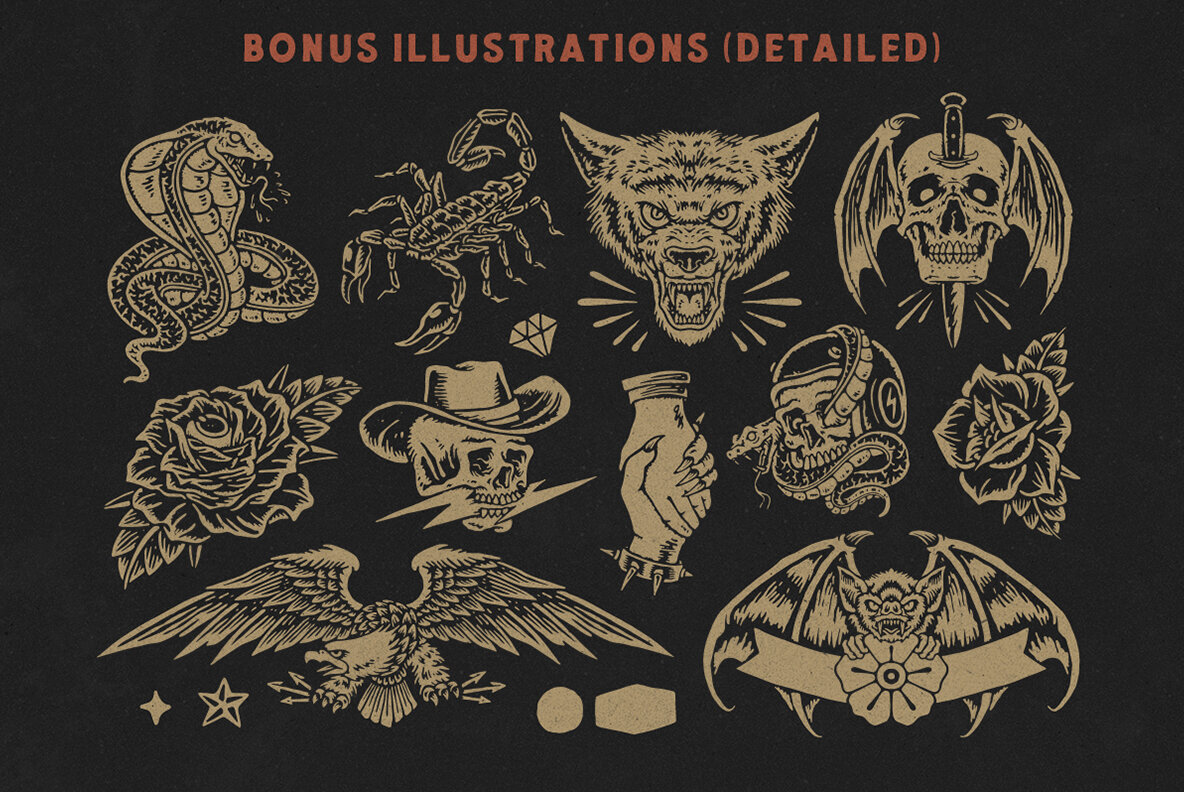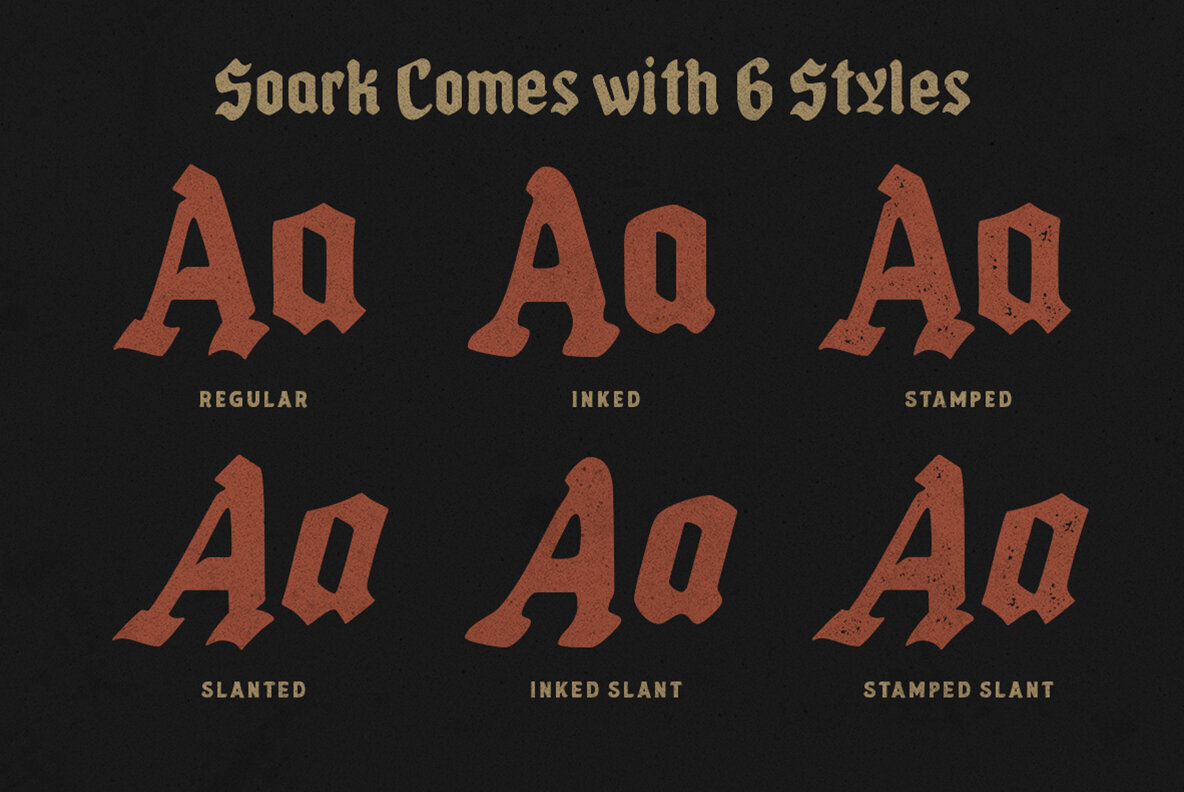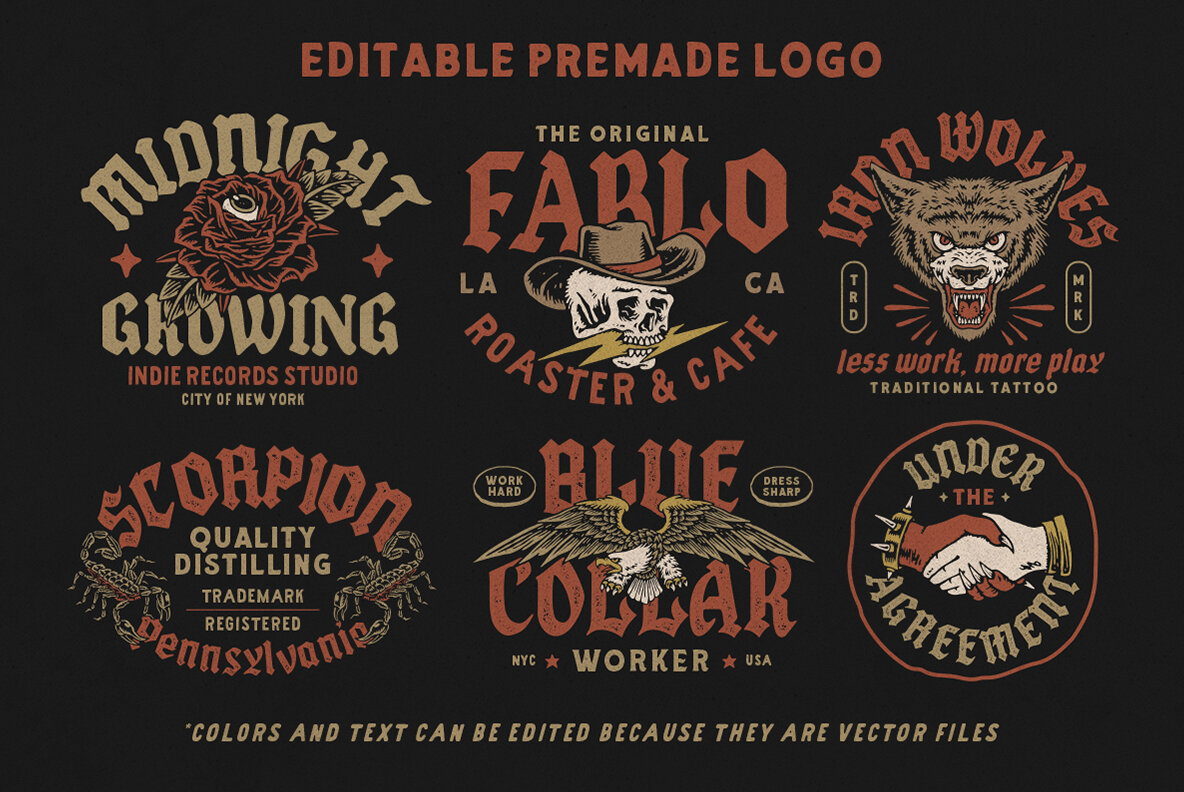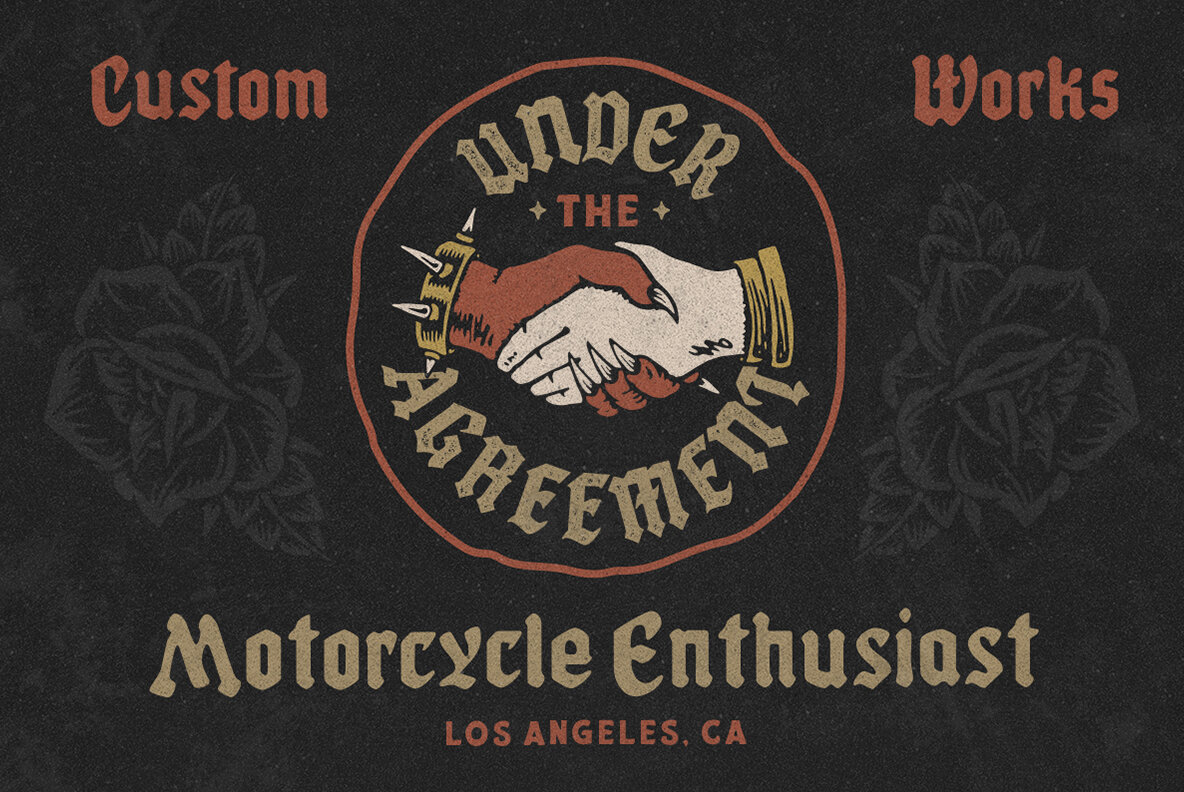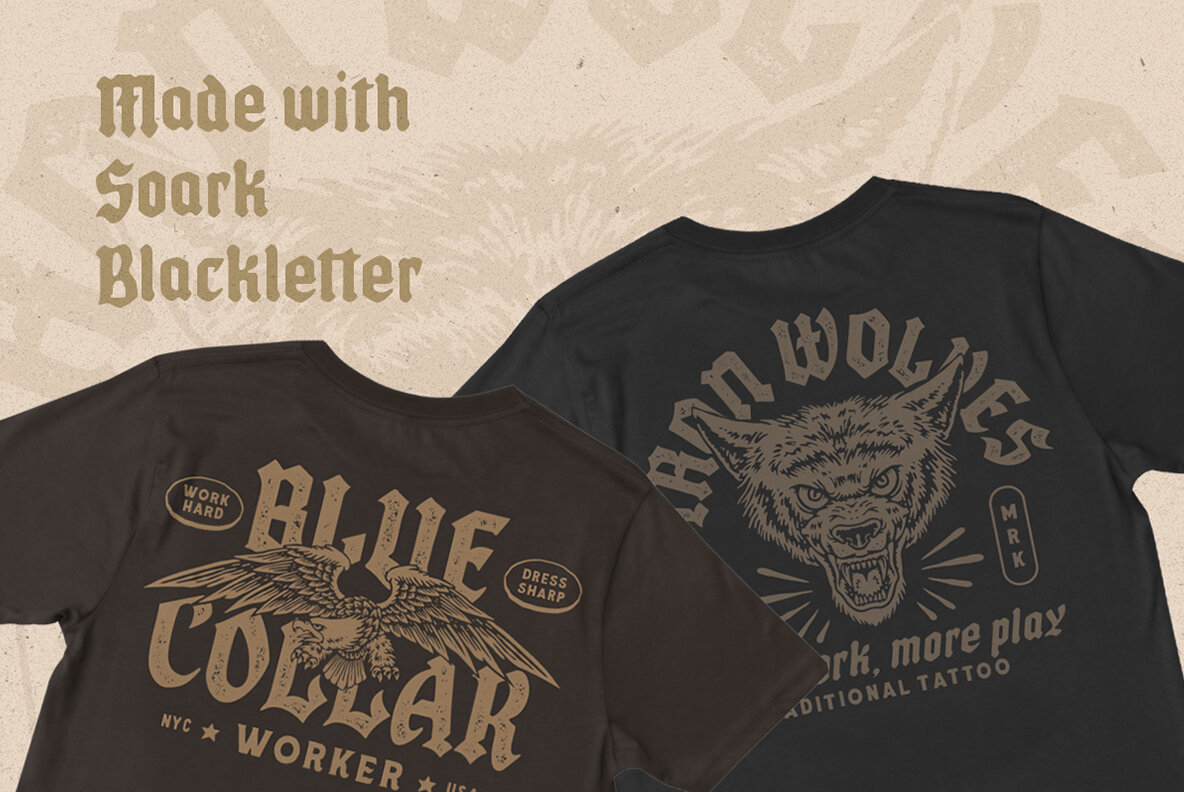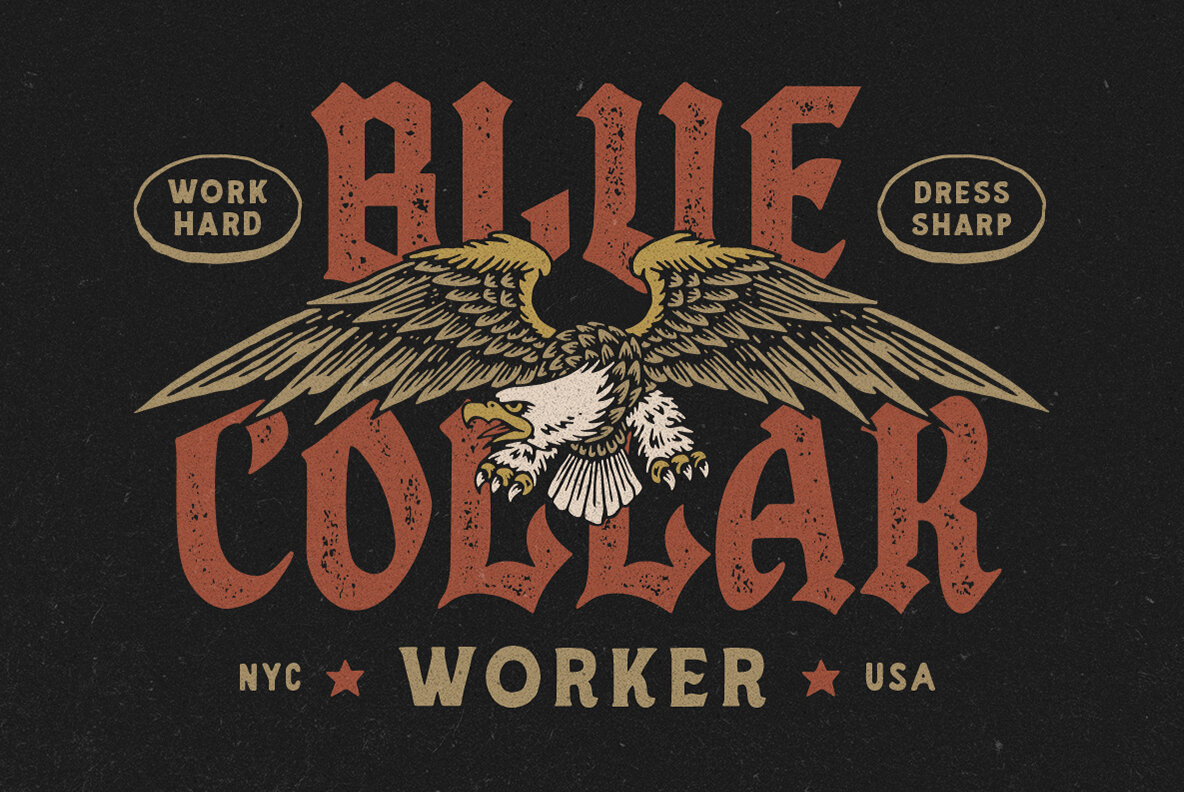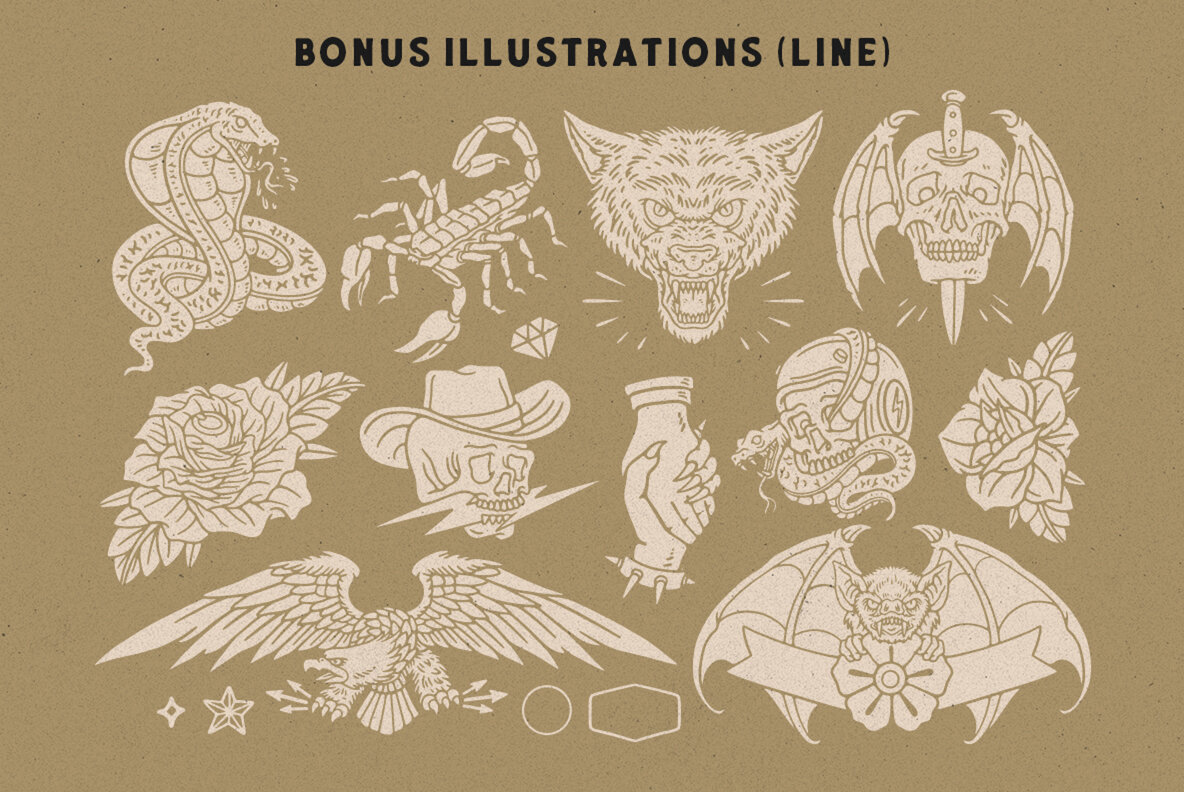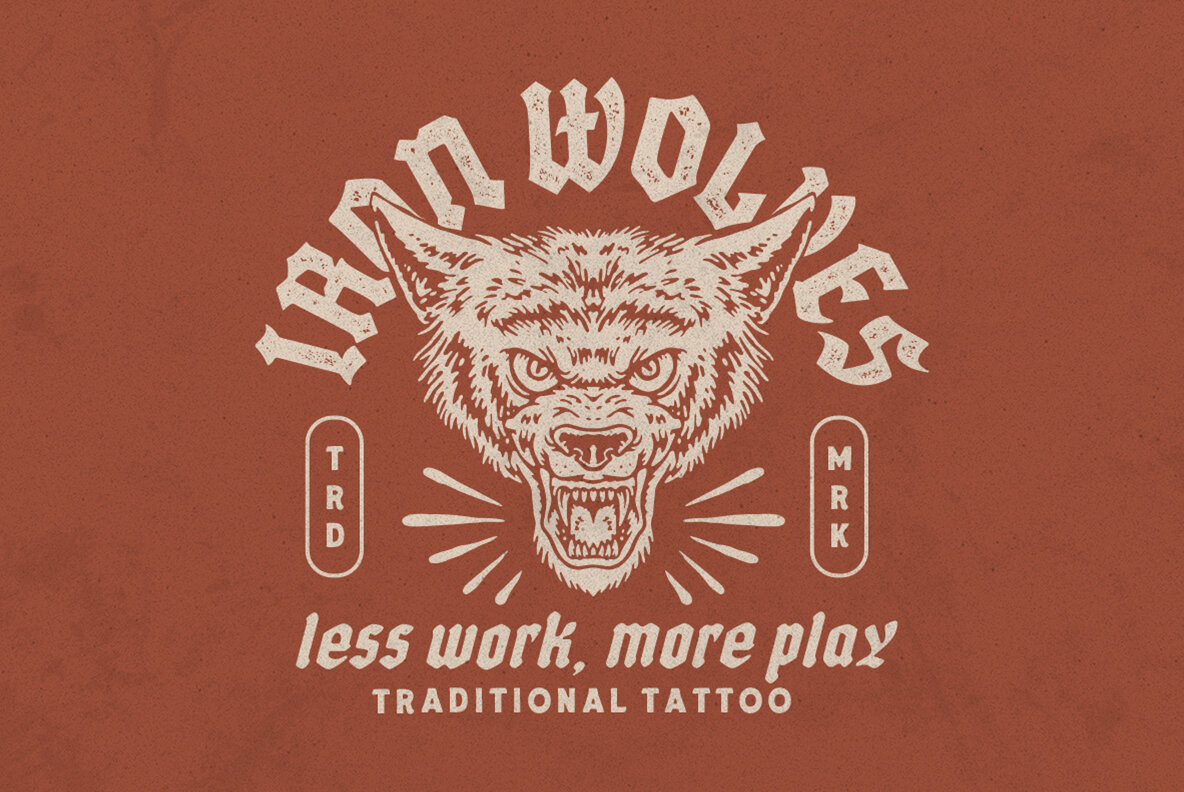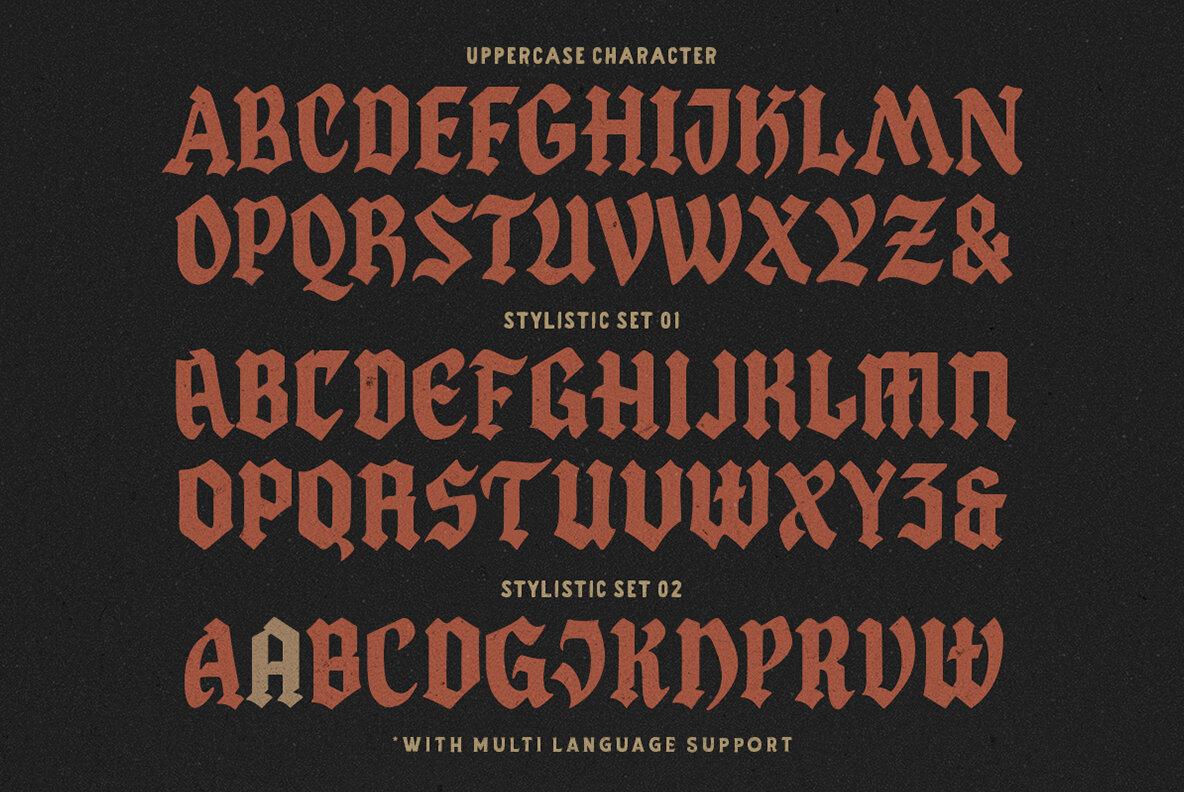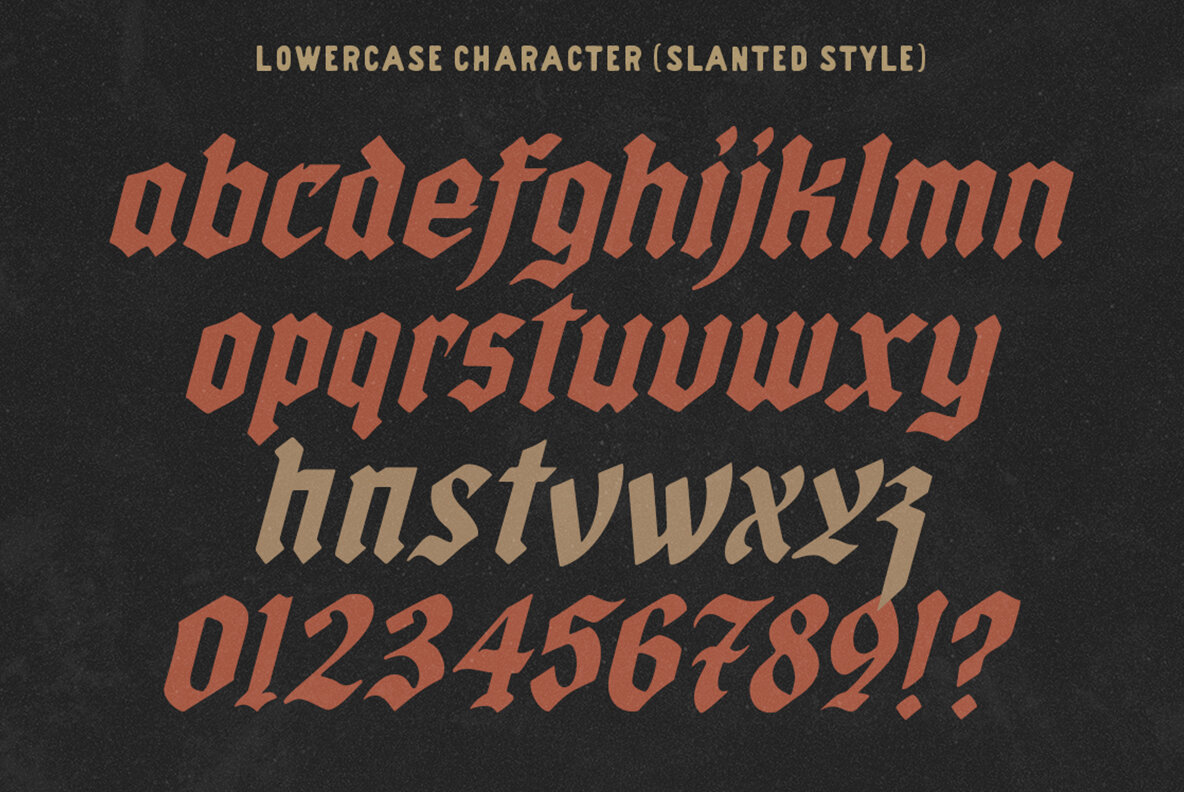
Soark Font
Unlock the raw power of tradition with our Soark Blackletter font. Crafted organically and infused with handcrafted touches. Embrace authenticity and let your creativity flourish with every character. Also comes with a selection of Illustration & Premade Logos, making it easier than ever to create a cohesive and visually stunning design.